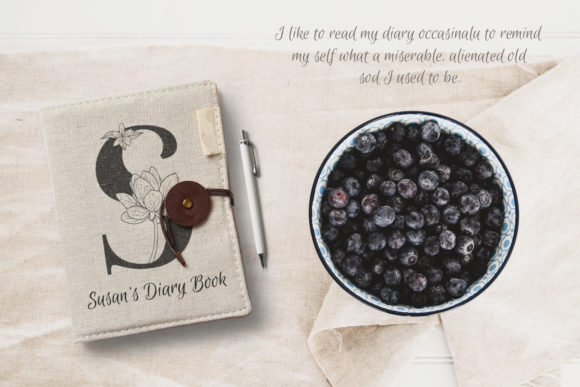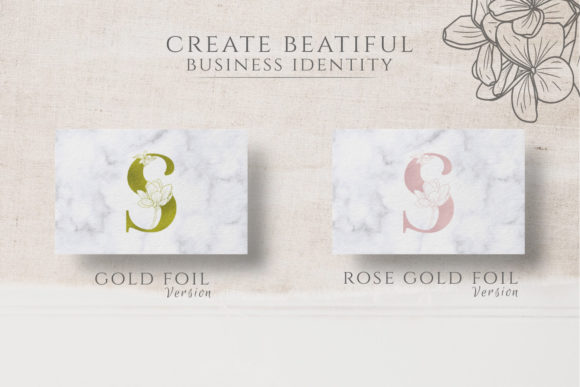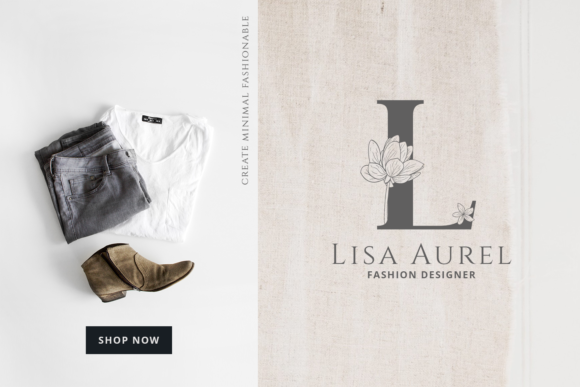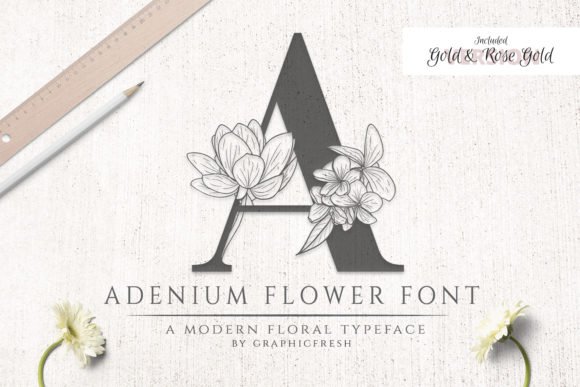
Introduction to Adenium Flower Font
The Adenium Flower is inspired by frangipani flowers.
In Latin it is named β€œAdenium” A flower that is very beautiful.
Adenium Flower Font offers exceptional quality and versatility, making it a valuable addition to your design toolkit. Whether you’re creating for personal projects or commercial use, Adenium Flower Font delivers professional results.